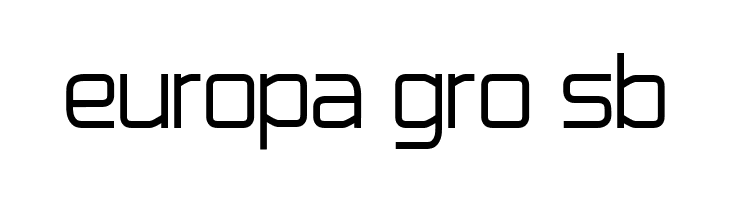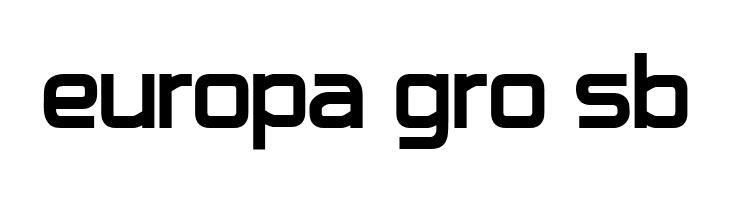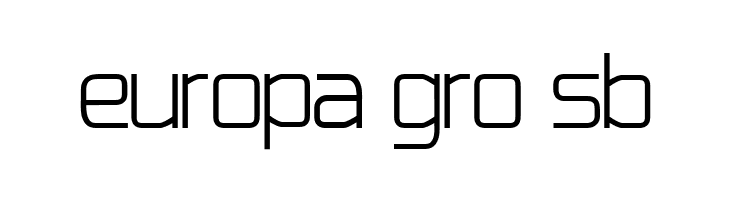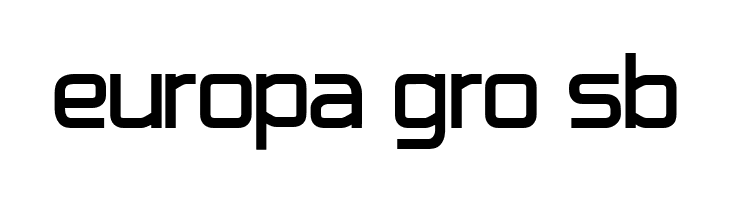
A bold, expressive handwritten font with dynamic strokes.
A bold, handwritten font with an energetic and playful style.
A bold, italic, hand-drawn font with dynamic strokes and a playful style.
A bold, italicized handwritten font with dynamic strokes and a playful style.
A lively, expressive handwritten font with fluid and dynamic strokes.
A textured, distressed font with a bold, vintage appeal.
A playful, hand-drawn font with bold, irregular lines and a quirky, cartoonish style.
A dynamic, expressive handwritten font with fluid strokes and artistic flair.
A playful, casual handwritten font with dynamic strokes and a whimsical feel.
A geometric, maze-like font with intricate line patterns and a bold, modern style.
A playful, studded font with decorative outlines and circular embellishments.
A bold, high-contrast font with Art Deco influences and geometric shapes.
A bold, Art Deco-inspired font with high contrast and geometric shapes.
A bold, Art Deco-inspired font with geometric shapes and a vintage flair.
A bold, geometric font with Art Deco influences and high contrast strokes.
A bold, geometric font with Art Deco influences and uniform strokes.
A bold, playful font with a hand-drawn, quirky style.
Playful handwritten font with rounded edges.
A bold, expressive script font with high contrast and flowing cursive letterforms.
A bold, geometric font with a modern and professional style.
A bold, geometric sans-serif font with a modern and clean design.
A bold, modern typeface with geometric structure and consistent stroke widths.
A sleek, modern font with a geometric and minimalist design.
A modern, geometric font with clean lines and uniform character width.
A sleek, ultra-thin font with a modern, minimalist design and geometric structure.
A bold, geometric font with a modern and clean style.
A modern, geometric sans-serif font with a light and airy feel.
A modern, geometric sans-serif font with a clean and minimalistic design.
A sleek, modern font with thin, geometric lines and a minimalist style.
A bold, italic font with a textured, gradient-like effect and a modern, dynamic style.
A playful, handwritten font with fluid strokes and a casual style.
A bold, geometric font with a halftone pattern and modern appeal.